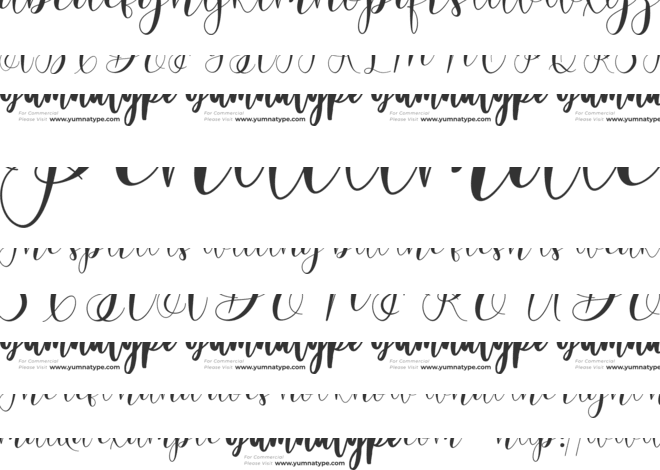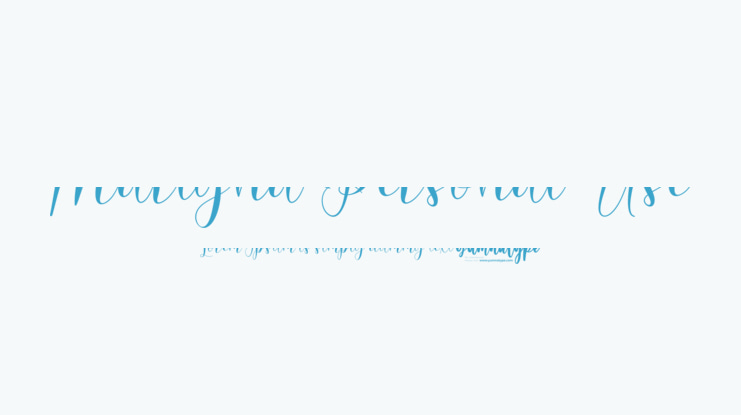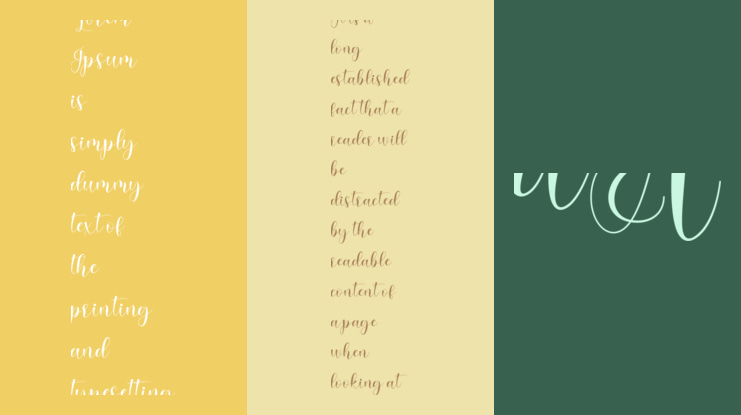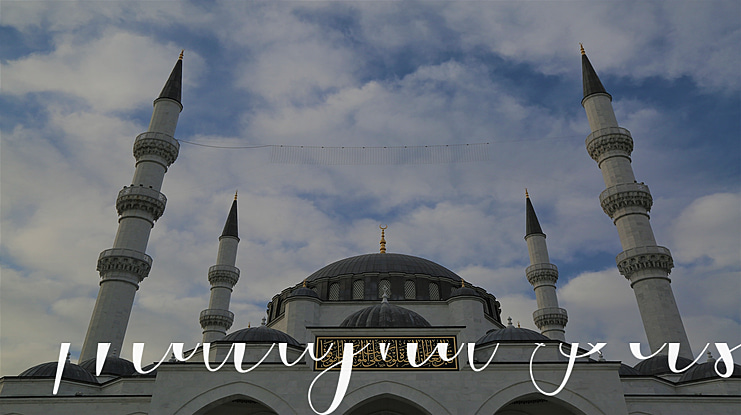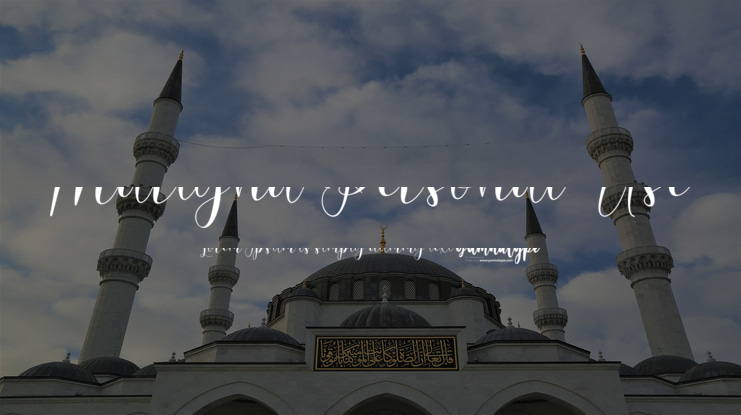
Say hello to Marlyna Script.
Marlyna is a beautiful and modern script.
It brings a beautiful and modern typeface that best used for weddings, branding, logotype, and quotes.